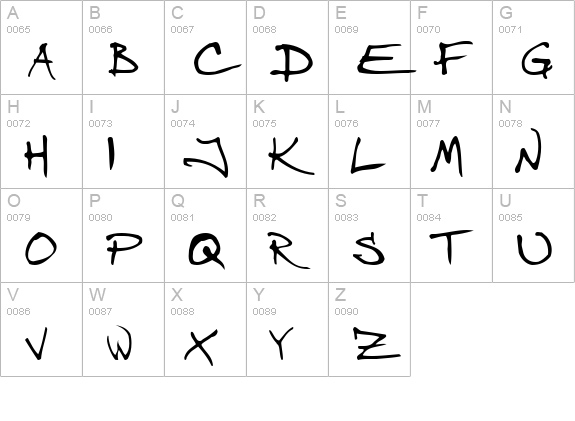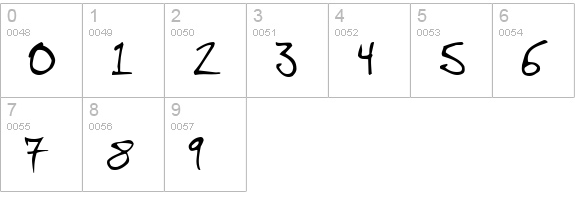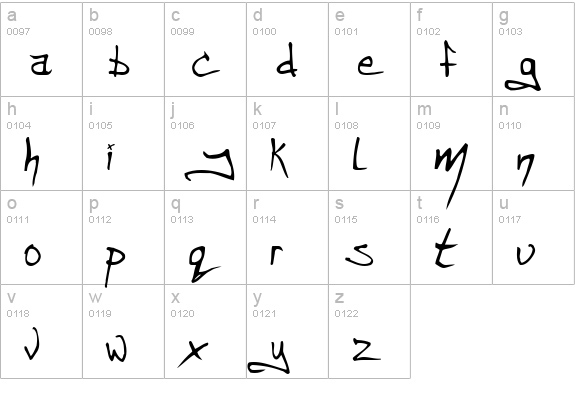
Angryblue Controlled font is a bold and edgy typeface that exudes a sense of power and intensity. Its sharp angles and strong lines give it a commanding presence, making it perfect for designs that need to make a bold statement. The font's aggressive appearance is balanced by a touch of sophistication, making it versatile for various design projects. This font is freely available to download at FontsMarket.com, making it easy for designers to access and use in their projects. Whether you're creating posters, logos, or branding materials, Angryblue Controlled font is sure to add a dynamic and impactful touch to your designs. With its unique character and modern aesthetic, this font is a must-have for designers looking to make a strong visual impact.